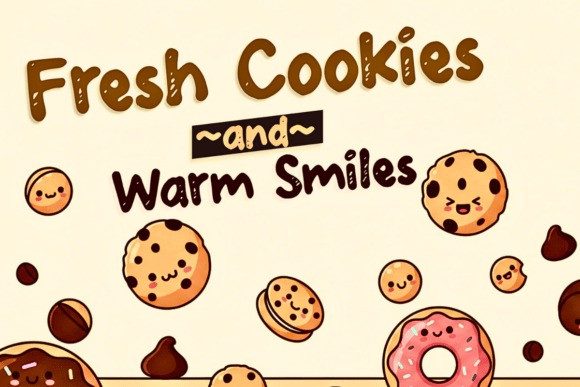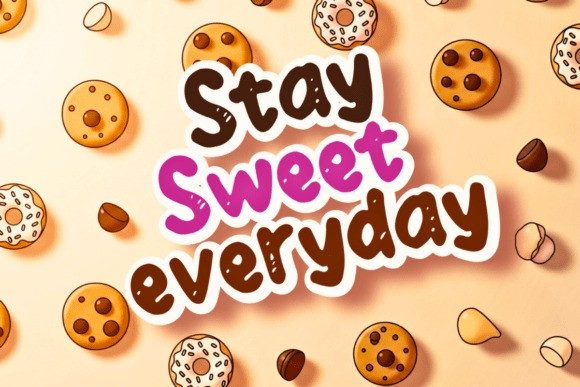
Choco Crumbs Font
Choco Crumbs Font is a delightful handwritten display font that adds a dash of charm and a hint of sweetness to any design.Its chunky, cheerful letterforms feel like they’ve been drawn with a swirl of chocolate, making it perfect for children’s projects, whimsical logos, snack packaging, fun posters, and anything in need of a joyful, hand-crafted vibe.
Whether you’re designing for a bakery brand or a birthday invitation, Choco Crumbs delivers a warm, playful energy that’s as inviting as a fresh batch of cookies. It’s tasty, fun, and bursting with personality!